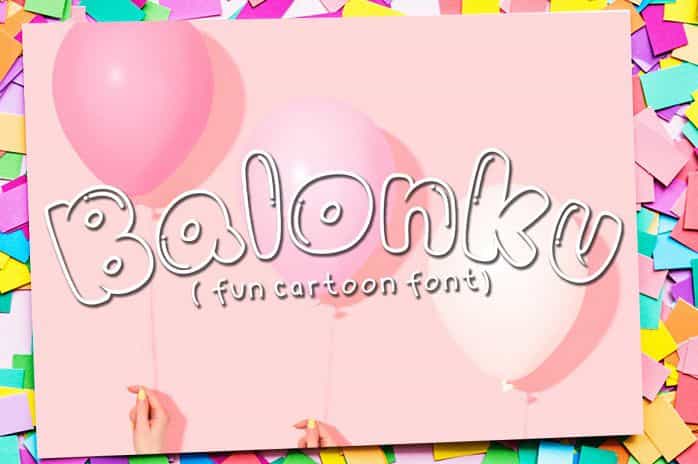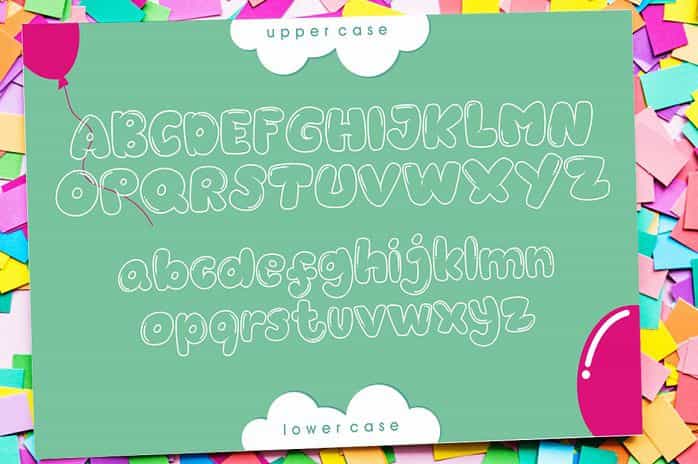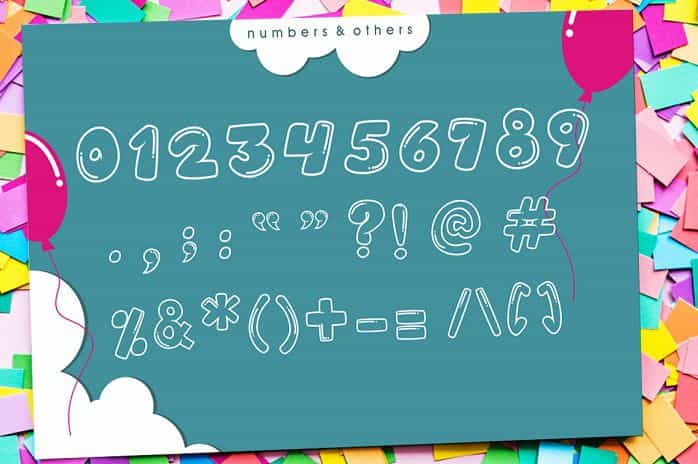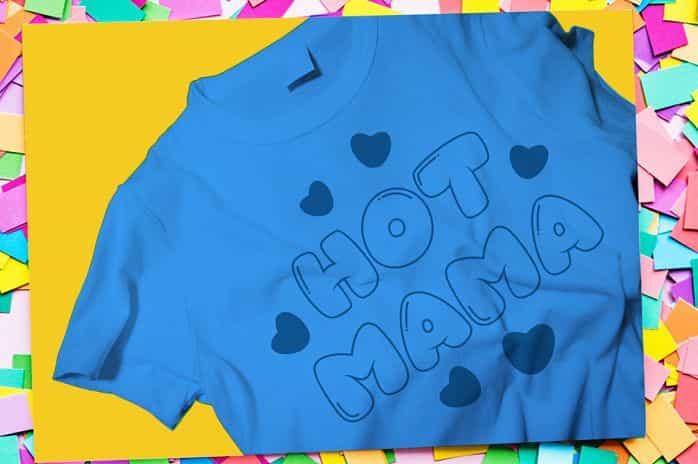
Introducing Balonku Font. Balonku is a decorative font that looks like balloons and soap bubbles. It can be applied in kids themed designs, birthday parties and every other design which requires a playful touch!